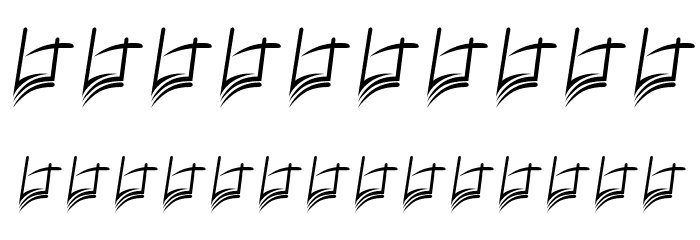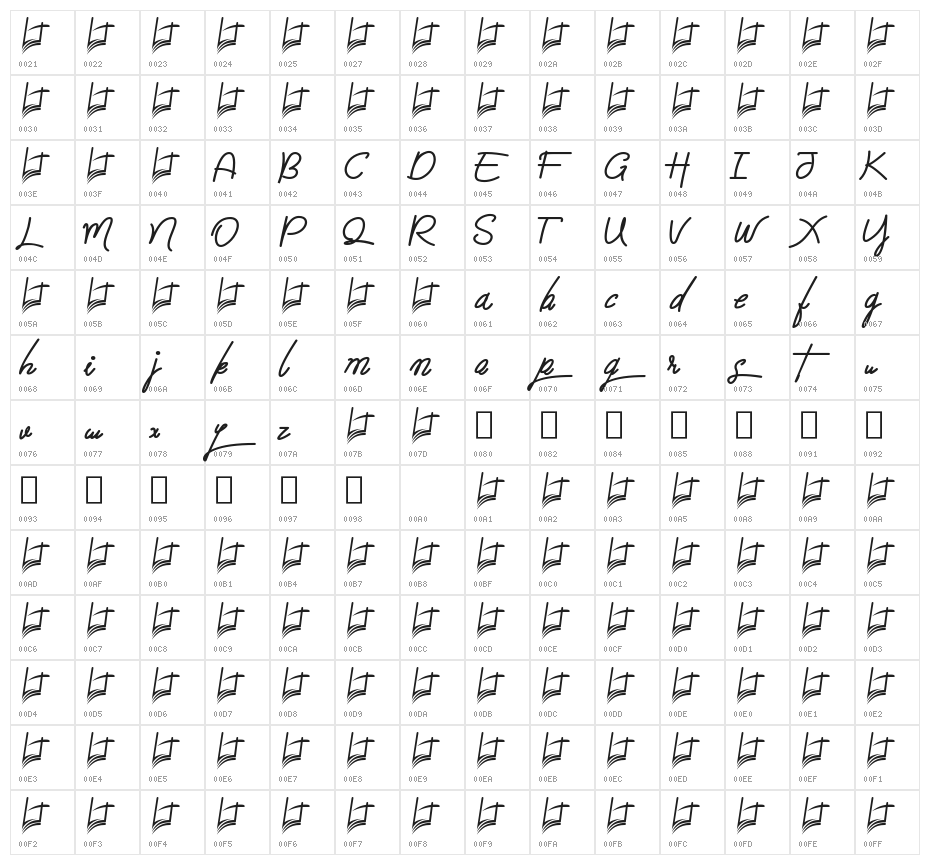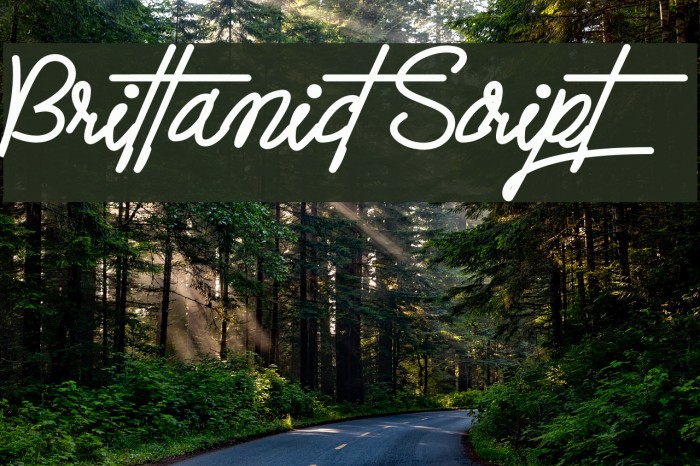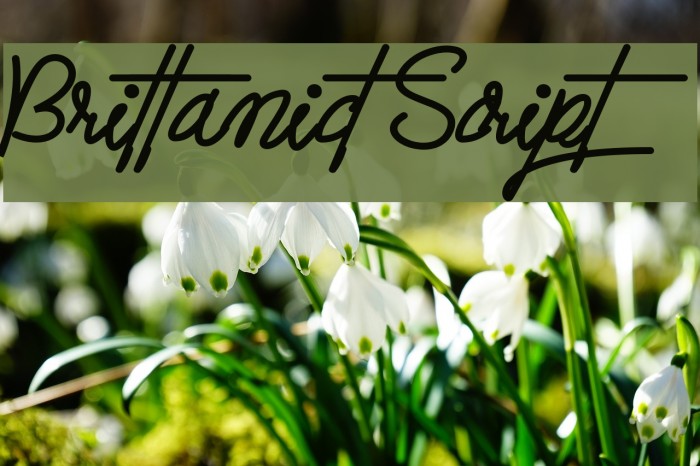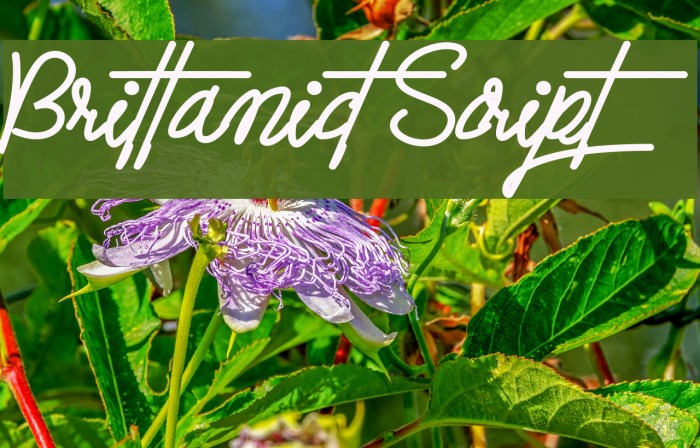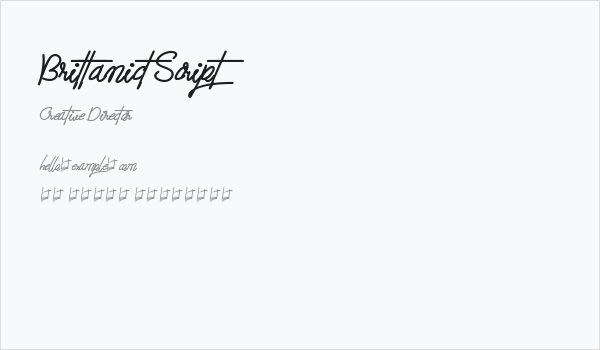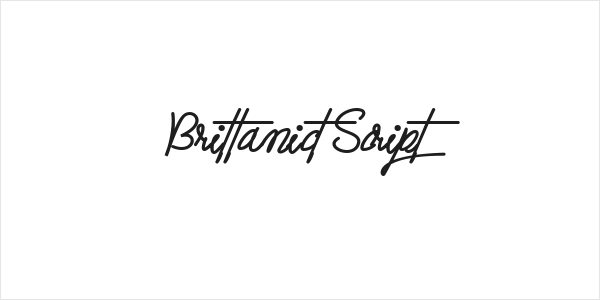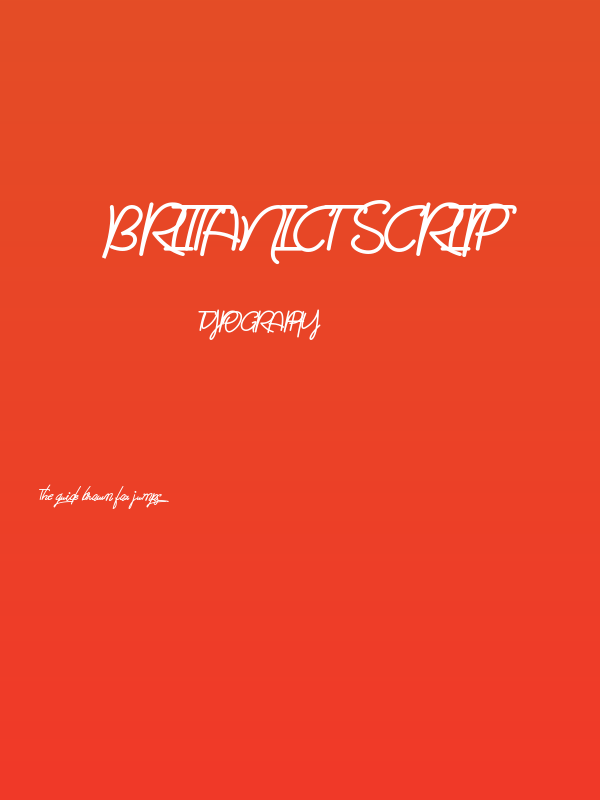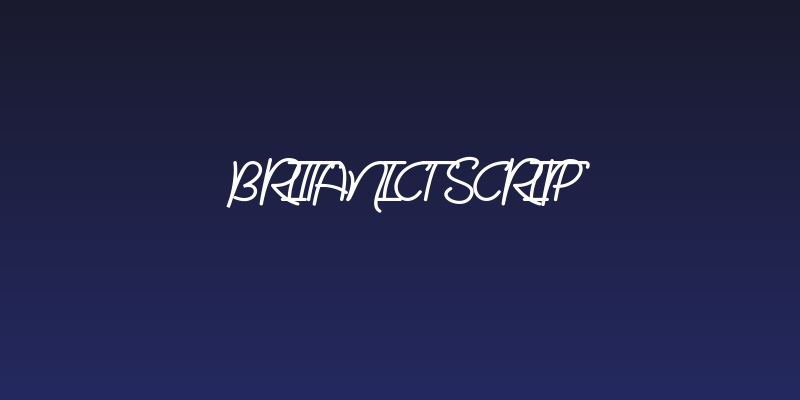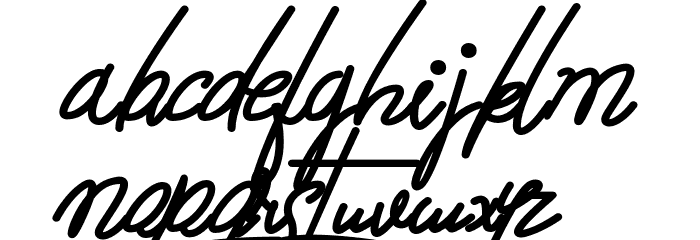
Brittanict Script Font
Brittanict Script Description
This font features a dynamic and flowing script style, characterized by its elegant and cursive letterforms. The uppercase letters are bold and sweeping, with distinctive loops and flourishes that give them a sense of movement and grace. The lowercase letters maintain a consistent flow, connecting smoothly to create a harmonious and cohesive look. The numbers and special characters are designed to complement the alphabet, maintaining the same fluidity and style. This font exudes a sense of sophistication and creativity, making it ideal for projects that require a personal and artistic touch.